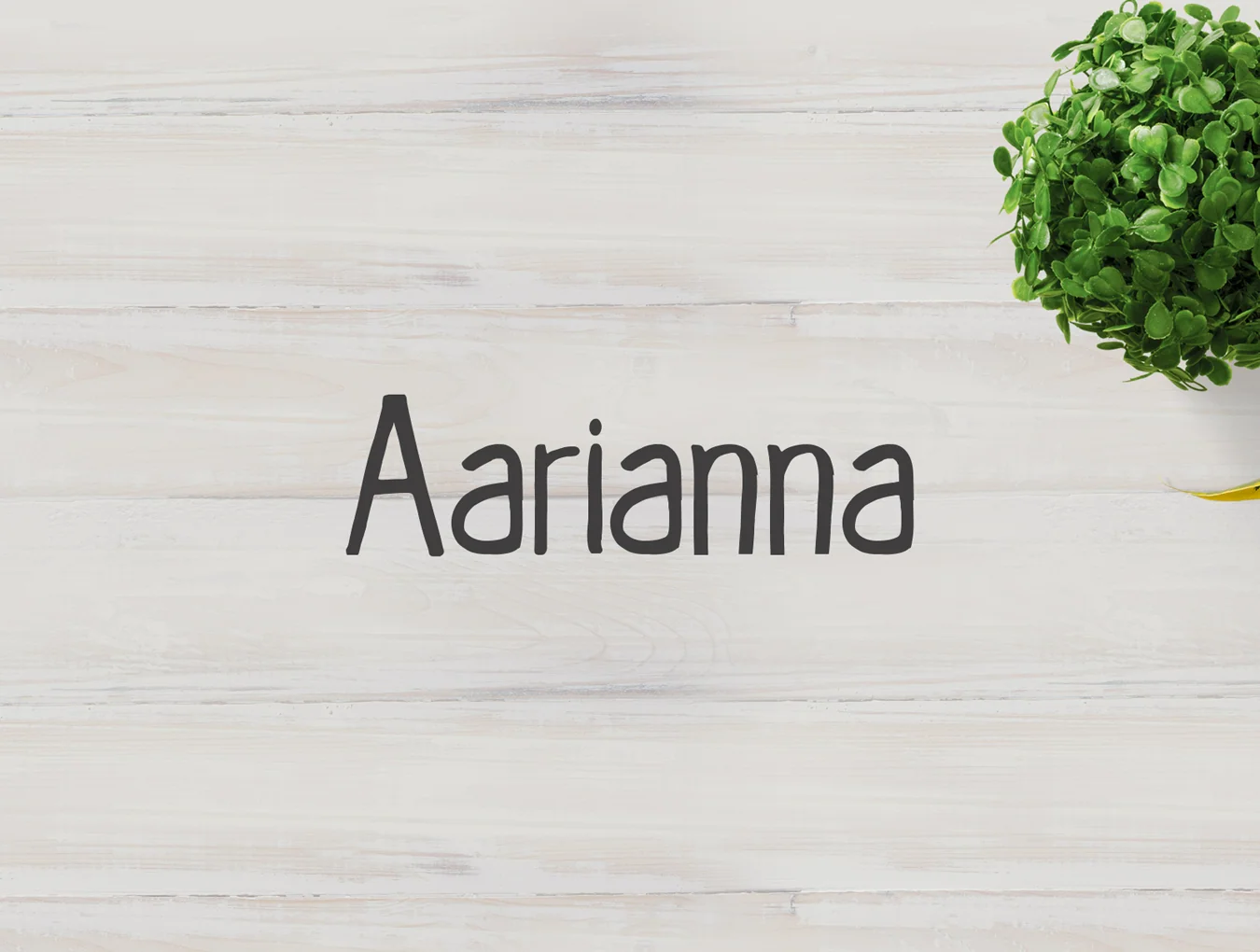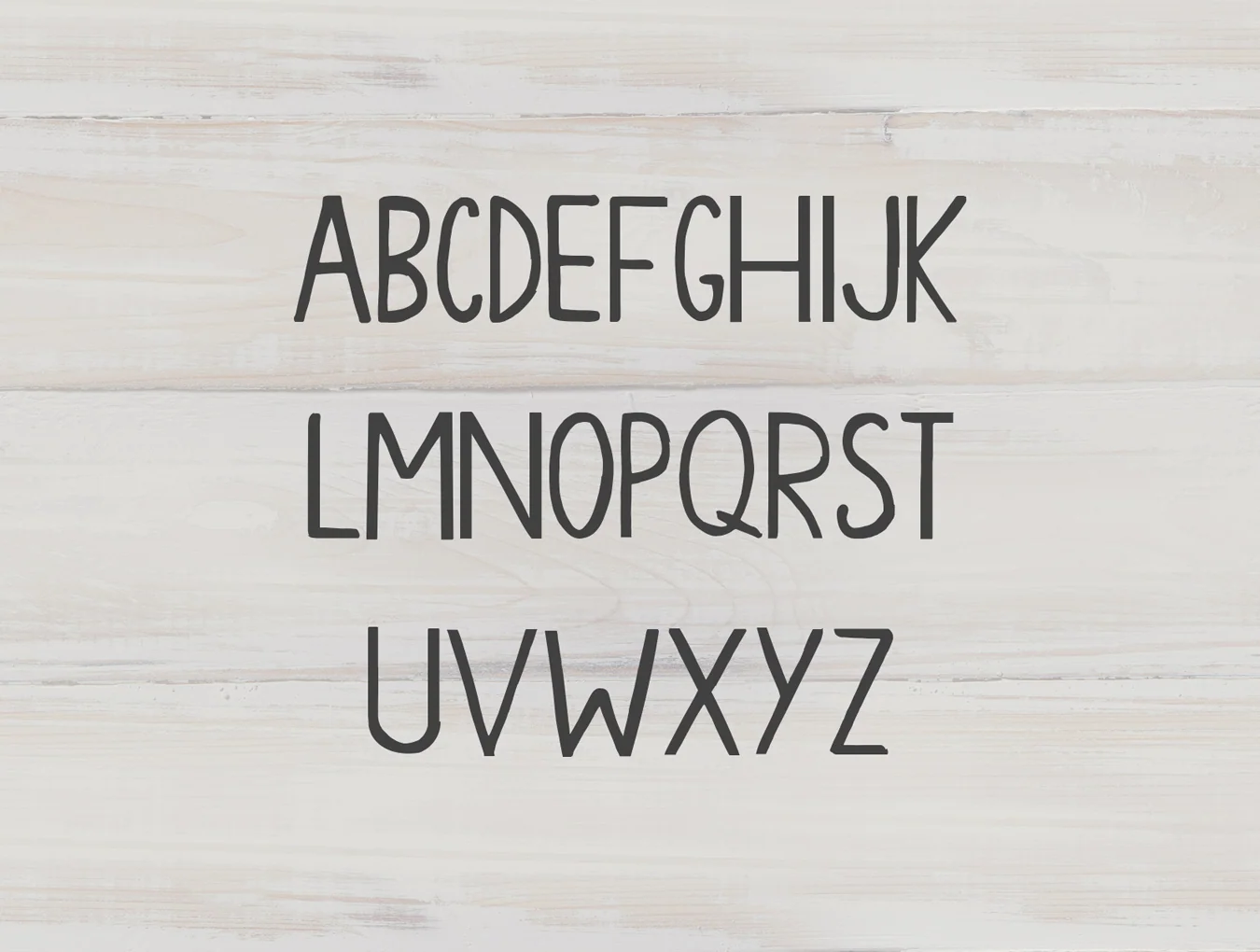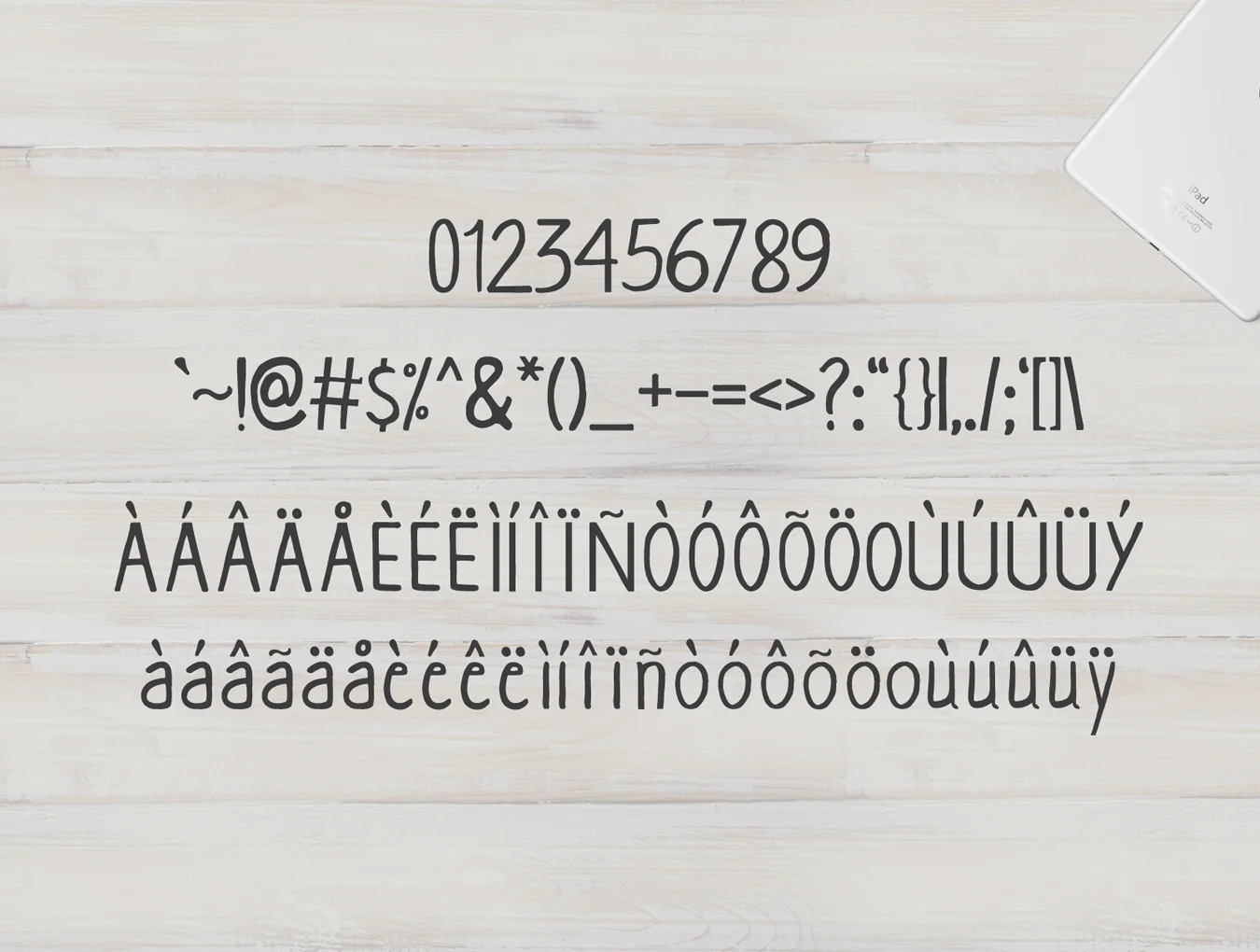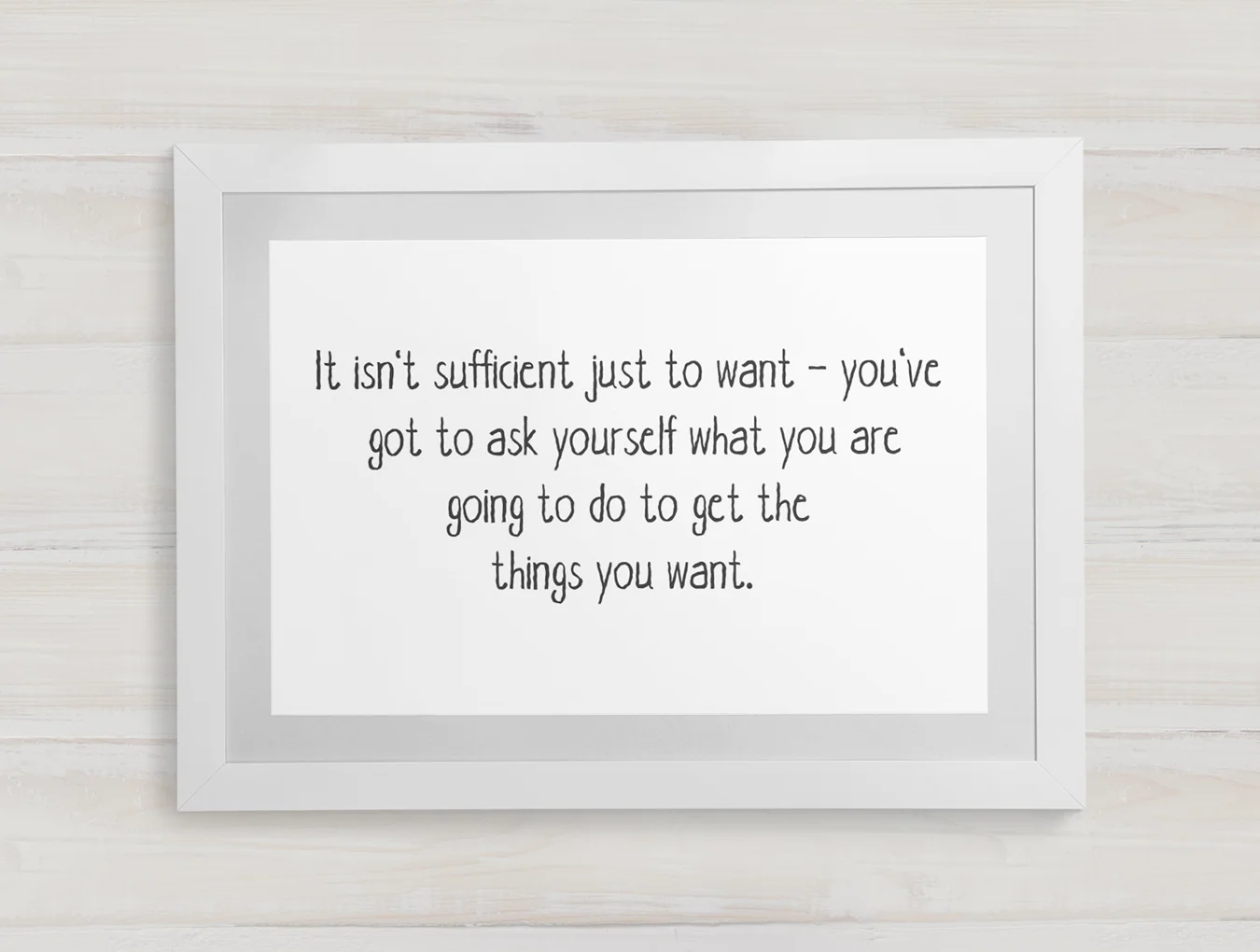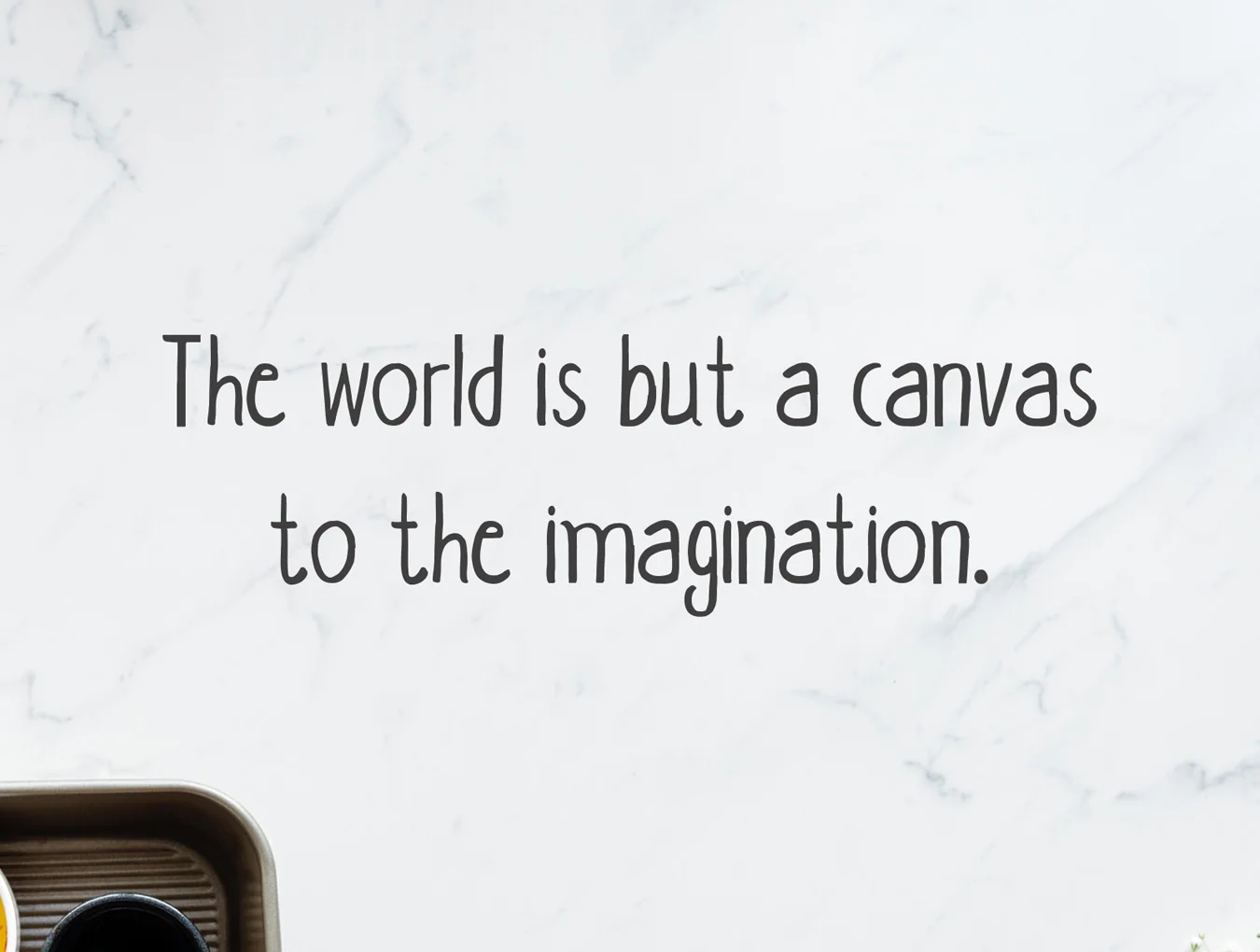
Aarianna Font Family
Handcrafted Font Set with Uppercase and Lowercase Letters
Handcrafted brush-style typeface
148 characters including numerals
Regular plus outline styles
Aarianna is a distinctive, bold handwritten font with uppercase and lowercase letters, supplied in OTF, TTF, WOFF, and WOFF2 formats. Ideal for logos, prints, quotes, badges, labels, headlines, banners, posters, T-shirts, magazines, packaging, blogs, websites, promos, templates, and more.